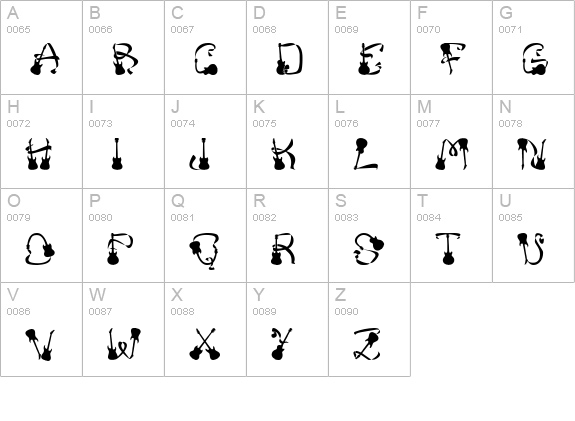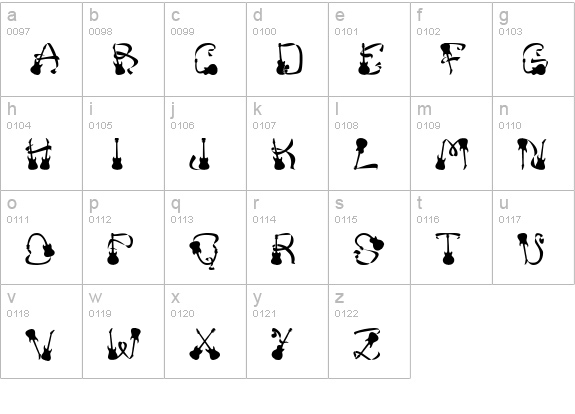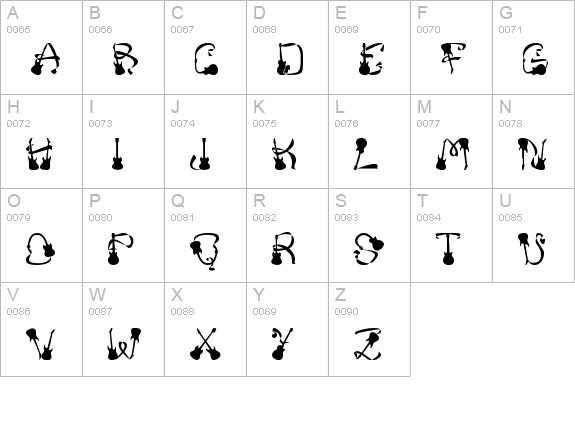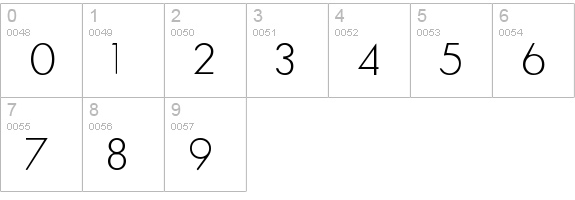
Frank Zappa Font Details
Frank Zappa font is a quirky and unique typeface inspired by the legendary musician and composer himself. With its playful and unconventional design, this font captures the rebellious spirit of Frank Zappa's music and personality. The Frank Zappa font features bold, expressive letterforms that are sure to make a statement in any project. What sets this font apart is its versatility and ability to stand out in a crowd. Whether you're designing album covers, posters, or branding materials, the Frank Zappa font will add a touch of originality and creativity to your work. Best of all, the Frank Zappa font is completely free to download at FontsMarket.com. So don't hesitate to add this bold and dynamic typeface to your collection today and let your creativity run wild with the spirit of Frank Zappa!